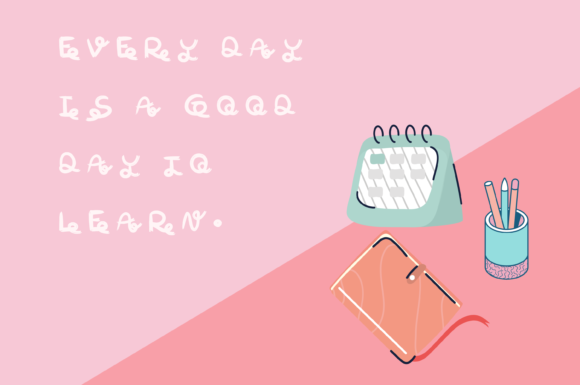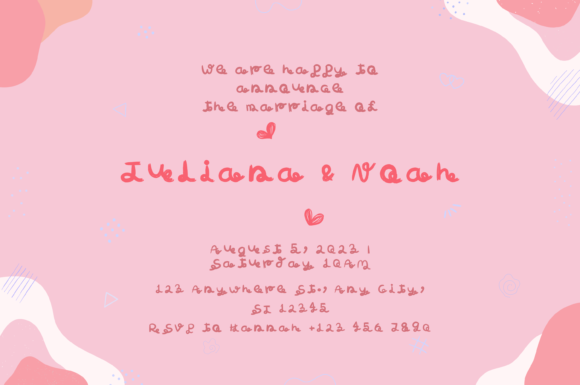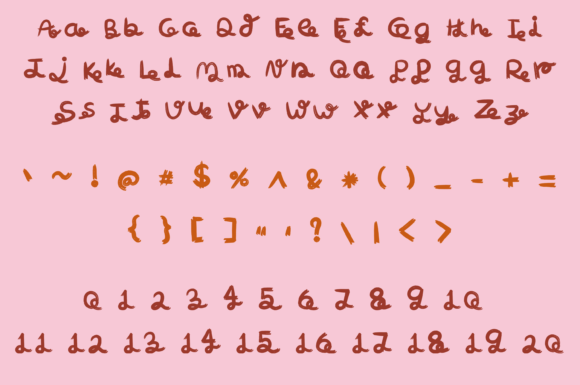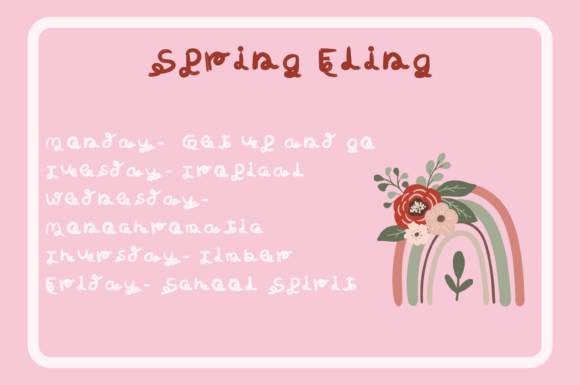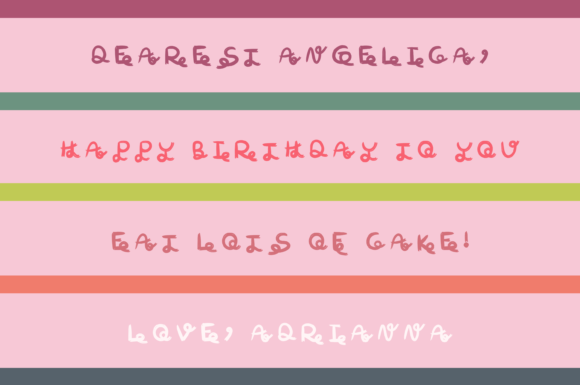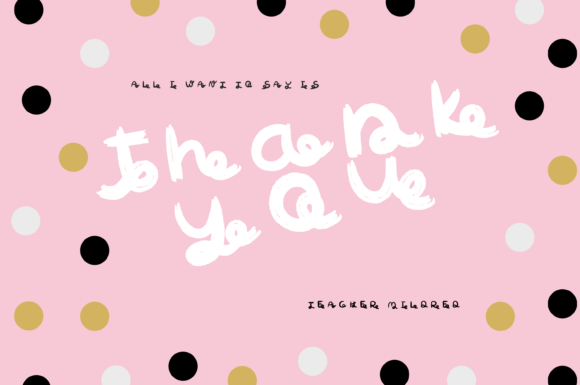
Swingy Style Font
About Swingy Style Font
Swingy Style is a playful and charming paint brushed handwritten font that adds a whimsical touch to your creative projects. With its lively strokes and carefree vibe, this font is a versatile choice that can effortlessly enhance a wide variety of design ideas.
The paint brushed texture of Swingy Style gives it a unique and organic feel, as if each letter has been handcrafted with an artistic touch. This texture adds depth and character to your text, making it a perfect fit for projects that aim to convey creativity, spontaneity, and a sense of handmade charm.
The whimsical nature of Swingy Style makes it a fantastic choice for a diverse range of projects. From children’s book illustrations and playful branding to artful posters and eye-catching social media graphics, this font injects a sense of fun and joy into your designs, instantly capturing the viewer’s attention.
The fluid and dynamic strokes of Swingy Style contribute to its energetic and lively appearance. Whether you’re designing greeting cards, crafting unique logos, or adding a personal touch to DIY projects, this font’s playful and spontaneous style brings a sense of movement and excitement to your text.
Swingy Style’s adaptability makes it easy to pair with various design elements. Its whimsical nature allows it to harmonize with both intricate and simple visuals, creating a balanced and visually pleasing composition. This versatility ensures that Swingy Style can seamlessly integrate into any project, enhancing its overall aesthetic.
With Swingy Style, you have the freedom to experiment and explore different creative directions. Its paint brushed texture and whimsical charm encourage you to infuse your designs with personality and a touch of artistic flair, making every project truly unique and captivating.
Whether you’re working on branding, illustration, typography, or any other design endeavor, Swingy Style is a font that stands out and leaves a lasting impression. Its playful and paint brushed handwritten aesthetic injects a sense of liveliness and creativity into your projects, transforming them into vibrant and engaging visual experiences.